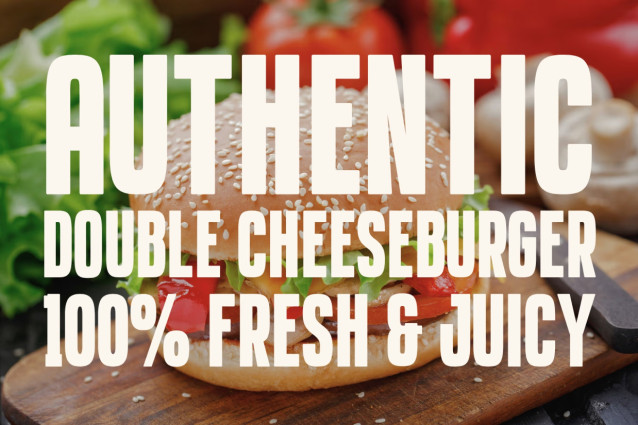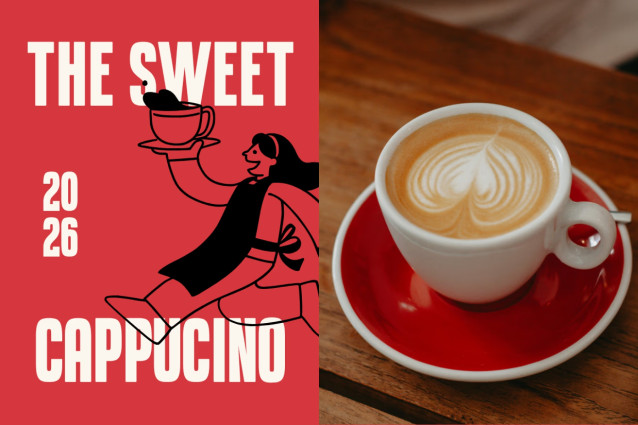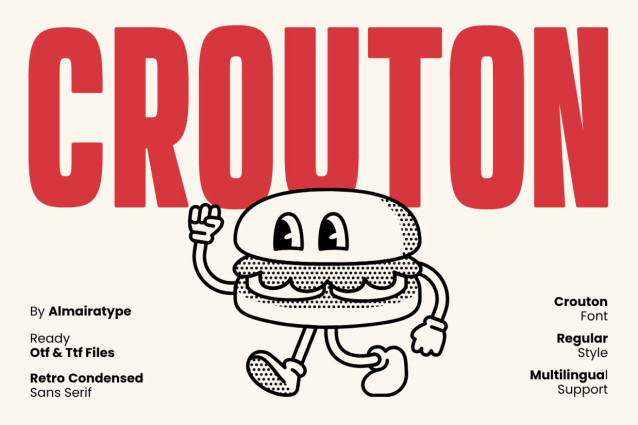
Make a bold, commanding, and delightfully nostalgic statement with Crouton, an ultra-bold tall condensed retro sans serif font engineered for creators who want their headlines to pop with a cheerful, vintage diner and foodie charm. Meticulously structured with a heavy display weight, tall narrow baselines, and softly rounded corners, this versatile font brings an instant blend of 70s vintage cartoon culture and clean modern commercial professionalism to any creative canvas.
Whether you are an apparel designer launching a fresh foodie-themed streetwear collection, a graphic artist establishing a bold restaurant or diner brand, or a high-volume print-on-demand seller optimizing listings for search engine conversions, Crouton delivers unmatched readability and outstanding shelf appeal. For the crafting community and DIY enthusiasts, every single glyph has been technically polished and vector-optimized to ensure a smooth, effortless cutting and weeding experience on digital cutting machines like Cricut and Silhouette. Bring the powerful, compact, and timeless aesthetic of Crouton into your commercial design toolkit today!